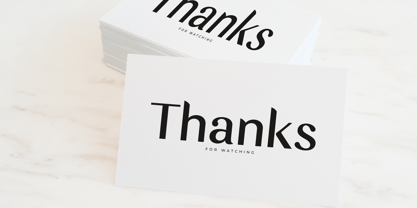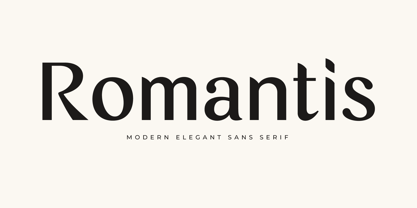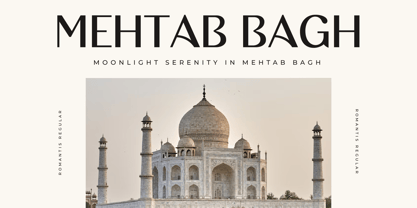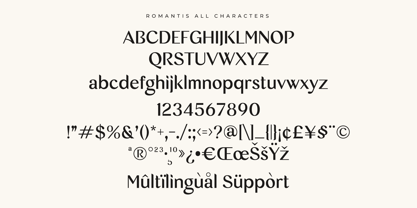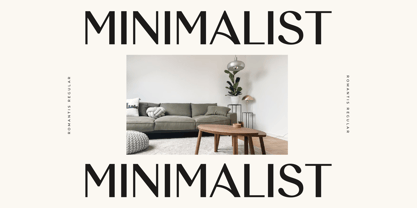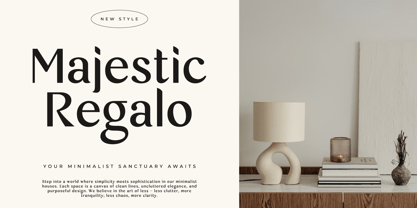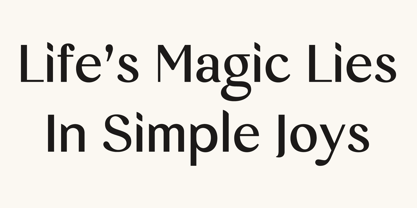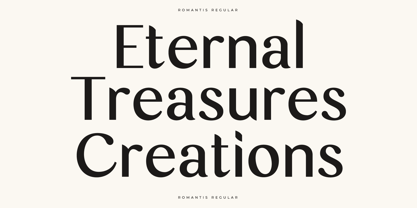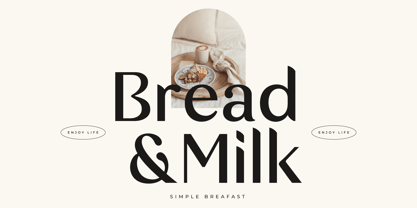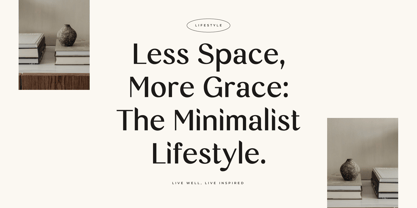
Romantis
La familia tipográfica Romantis fue diseñada por Edy Subiyanto y publicada por Jaruka Creative. Romantis contiene 1 estilos. Más información sobre esta familia
Romantis is a masterfully crafted sans-serif typeface that effortlessly bridges the gap between clean minimalism and high-end luxury. Designed with a distinct contemporary flair, this font is defined by its striking contrast, sophisticated curves, and subtle structural surprises that elevate standard typography into a visual experience.
At first glance, Romantis offers the legible, uncluttered structure of a modern sans-serif.
Key Design Features
• Sophisticated Architecture: A gorgeous interplay of thick and thin strokes provides a luxury-brand aesthetic while maintaining a crisp, sans-serif foundation.
• Unique Character Details: Leaf-shaped vertical terminals and artistic, fluid letterforms (like the unique curves in M, A, and R) inject romance and personality into every word.
• Extensive Character Set: Includes full uppercase and lowercase alphabets, crisp numerals, essential punctuation, currency symbols, and standard ligatures.
• Multilingual Support: Fully equipped with an extensive range of diacritics and accented characters, ensuring seamless global compatibility for international branding.
Romantis shines brightest where elegance and style are paramount. It is the perfect choice for designers, creators, and brands looking to make a premium statement:
• Luxury Branding & Logos: Establish a high-end identity for fashion houses, jewelry brands, boutique hotels, or premium interior design studios.
• Editorial Layouts & Headlines: Create breathtaking magazine covers, impactful article titles, and sophisticated book designs.
• Minimalist Web & Packaging Design: Bring a serene, architectural elegance to skincare packaging, artisanal food labels, or clean lifestyle websites.
• Event Stationery: Elevate wedding invitations, modern menu designs, and luxury event branding with a touch of contemporary romance.